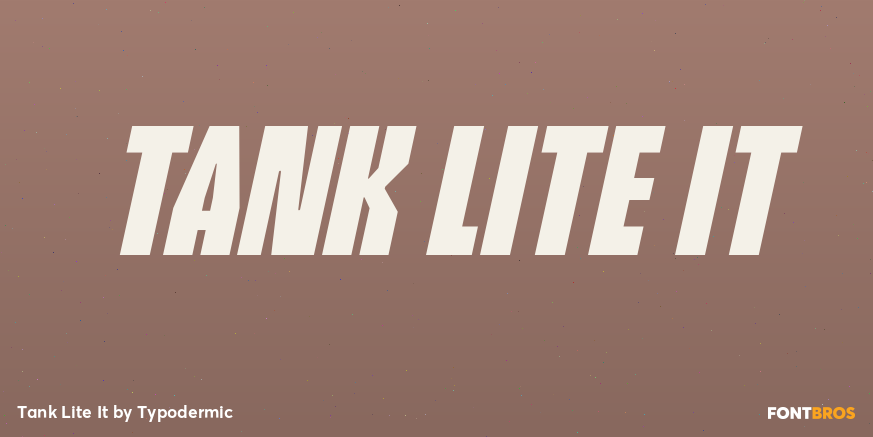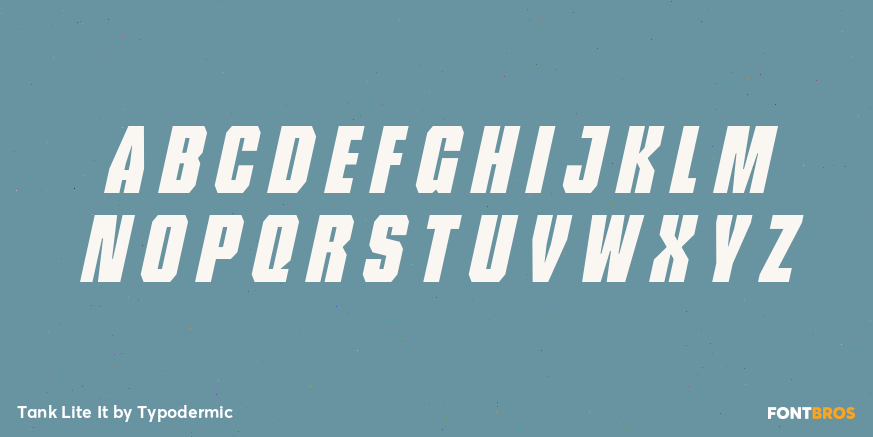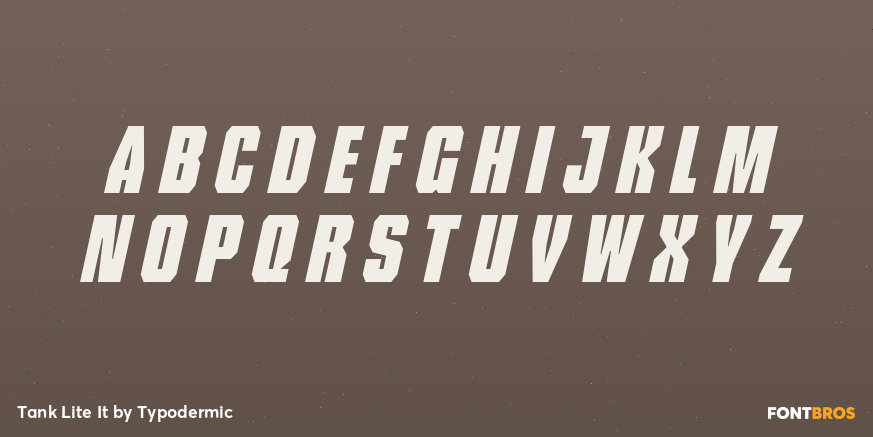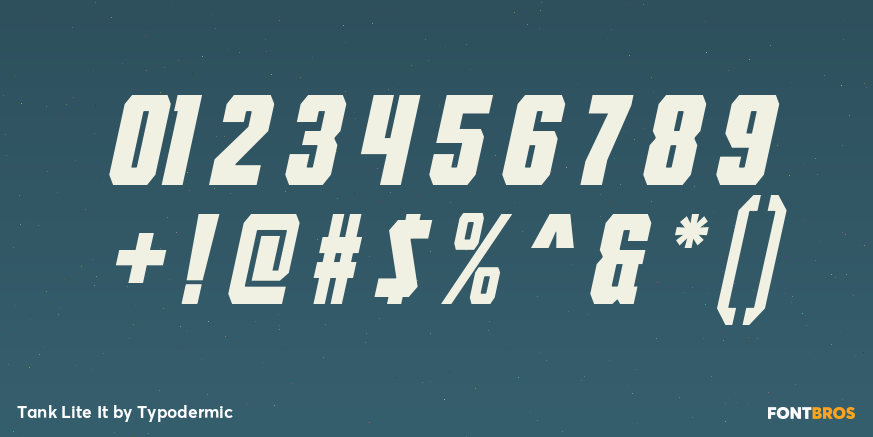
Tank Lite It
Buy NowLarge campaigns often need two things at once: oversized typography and rich imagery. Put the headline over the photograph and it starts obscuring the subject; push the image behind the letters and the typography can lose impact. Tank approaches the problem differently. Its massive all-caps forms were designed with generous internal spaces that can become containers for photography, material textures and, in motion graphics, moving footage. The headline can carry the visual content instead of merely sitting on top of it.
That makes Tank particularly useful for professional sports campaigns. Season launches, roster introductions, jersey reveals, rivalry weeks, playoff graphics and athlete announcements all have to combine names, faces, uniforms and team imagery across arena screens, concourse displays, outdoor advertising and social video. Tank can hold player portraits, crowd footage, city imagery or uniform details inside a short team name or campaign phrase while maintaining a strong outer silhouette.
Its alternate closed-counter forms expand that possibility. Where an ordinary counter would interrupt an important face, product detail or moving image, the more continuous alternate can provide a larger uninterrupted visual field. The regular letterform remains available when conventional structure matters more.
Arena tours, concert residencies and large-format live entertainment create a similar problem. Tour names and artist titles may need to occupy stage LED walls, arena ribbons, venue façades and promotional films without simply covering the performance imagery behind them. Tank can turn those titles into apertures for artist close-ups, crowd footage, lighting effects and live-camera material while the outer typography stays consistent.
Streaming, film and factual entertainment can use the same approach for ensemble-driven key art. Sports documentaries, competition series, action ensembles and reality formats often have too many faces, locations or narrative elements competing for poster space. Tank lets part of that visual material move inside the title itself, keeping the lettering monumental while freeing the rest of the composition.
Material-led product campaigns offer another strong role. Performance footwear, technical apparel, carbon-composite bicycles, automotive interiors, architectural surfaces and advanced textiles are often sold through close-ups of what they are made from. Engineered knit can run through a shoe-series title; carbon weave can fill a bicycle-component name; terrazzo, recycled composite or acoustic textile can occupy an architectural-material heading.
Tank works best for short names, large headings and display graphics where the letters are big enough for their interiors to become useful visual space. Pair it with a quieter companion face for schedules, specifications and explanatory copy, and let Tank handle the moment when the headline and the image need to become the same thing.